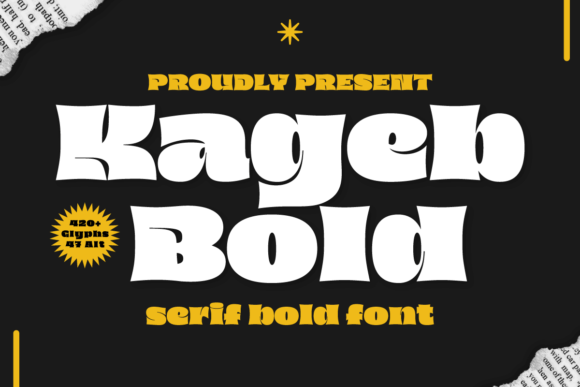
Introducing Kageb Bold, the font that exudes boldness and confidence. With its sharp and pointed serifs and thick lines, this display font makes a strong and impactful statement in the digital world. Step into a realm of visual dominance, where your designs command attention and leave a lasting impression.
Kageb Bold is the ultimate choice for creating headings, titles, and logos that demand attention. Its unmistakable strength and power make it the perfect fit for branding, advertising, and other marketing materials, where impact and memorability are paramount. Let your designs roar with confidence and make a statement that resonates with your audience.
Unleash the full potential of Kageb Bold's character set, accessible effortlessly through PUA encoding. Explore a world of glyphs and swashes, adding intricate details and flourishes that elevate your designs to new heights. Create stunning visuals that captivate and engage, leaving a lasting impression on your audience.
Embrace the boldness of Kageb Bold and watch your designs transform into captivating masterpieces. Its sharp lines and pointed serifs create a visual symphony, drawing eyes and igniting emotions. Whether you're a seasoned designer or just starting your creative journey, Kageb Bold is your key to unlocking the power of visual storytelling.